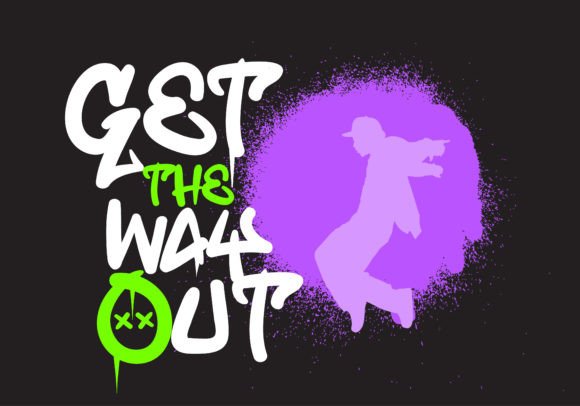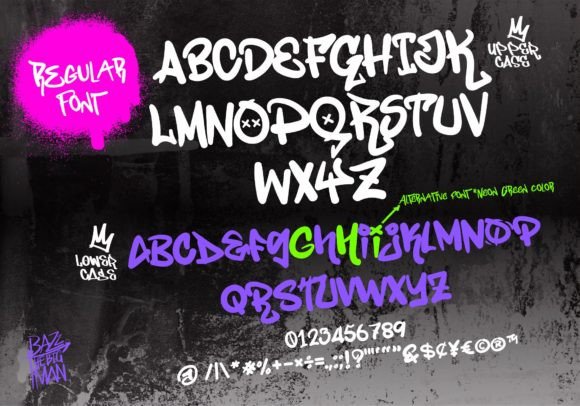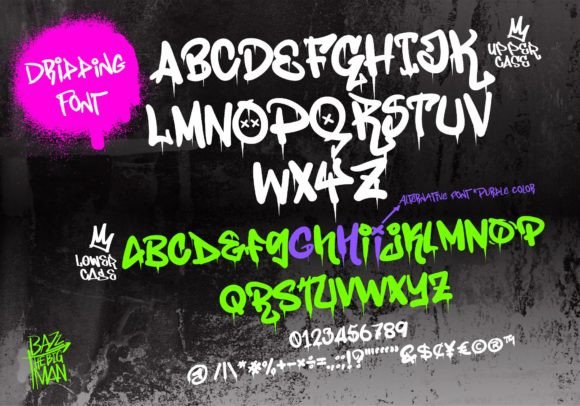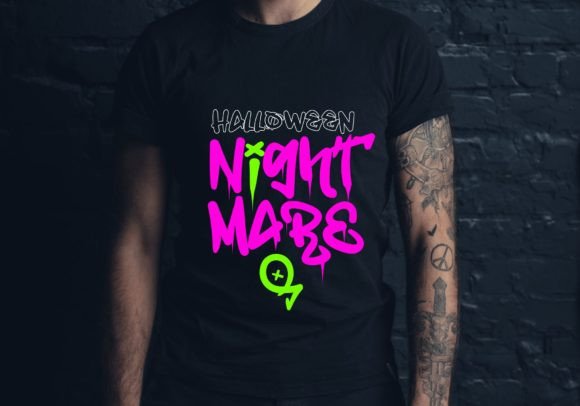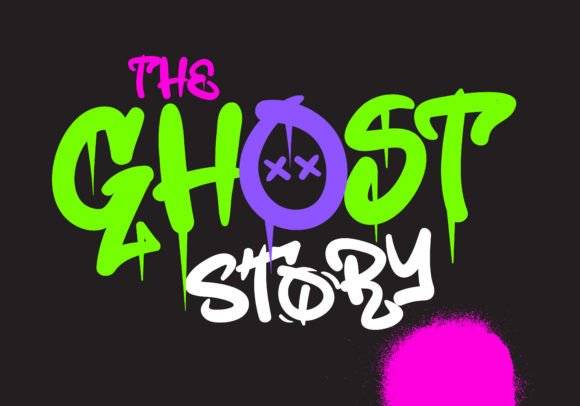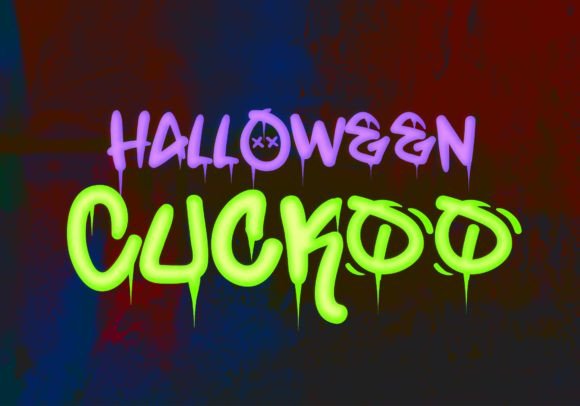
Unleash Your Creativity with Ghoster Font: The Ultimate Graffiti-Styled Display Font
Are you a designer or crafter looking for a font that can add a touch of edginess and street art vibe to your designs? Look no further than Ghoster Font! This awesome graffiti-styled display font is perfect for creating bold and eye-catching designs that will leave a lasting impression. In this article, we’ll dive into the features and benefits of Ghoster Font, and explore how you can use it to take your designs to the next level.
What is Ghoster Font?
Ghoster Font is a unique and stylish display font that is inspired by the urban art scene. Its graffiti-styled letters are bold, colorful, and full of character, making it perfect for designs that require a bit of attitude and swagger. Whether you’re creating a logo, advertisement, or t-shirt design, Ghoster Font is sure to make your work stand out from the crowd.
Key Features of Ghoster Font
- Graffiti-styled letters: Ghoster Font features bold and colorful letters that are inspired by the urban art scene.
- Street art vibe: This font has a distinct street art vibe that is perfect for designs that require a bit of edge and attitude.
- Suitable for various designs: Ghoster Font is versatile and can be used for a wide range of designs, including t-shirts, sportswear, logos, advertisements, clothing, and more.
Benefits of Using Ghoster Font
So, why should you choose Ghoster Font for your designs? Here are just a few benefits of using this awesome graffiti-styled display font:
- Adds a touch of edginess: Ghoster Font adds a touch of edginess and street art vibe to your designs, making them stand out from the crowd.
- Increases visibility: The bold and colorful letters of Ghoster Font make it perfect for designs that require high visibility, such as advertisements and logos.
- Versatile: Ghoster Font can be used for a wide range of designs, making it a great addition to your font library.
- Easy to read: Despite its bold and graffiti-styled letters, Ghoster Font is easy to read, making it perfect for designs that require a clear message.
Design Ideas Using Ghoster Font
Ghoster Font is perfect for a wide range of designs, including:
- T-shirts: Create bold and eye-catching t-shirt designs that will make you stand out from the crowd.
- Logos: Create unique and memorable logos that will help your brand stand out.
- Advertisements: Create bold and attention-grabbing advertisements that will grab the attention of your target audience.
- Sportswear: Create stylish and bold sportswear designs that will make you stand out from the crowd.
- Clothing: Create unique and eye-catching clothing designs that will make you stand out from the crowd.
Ghoster Font is an awesome graffiti-styled display font that is perfect for designers and crafters looking to add a touch of edginess and street art vibe to their designs. With its bold and colorful letters, versatility, and ease of use, Ghoster Font is a great addition to any font library. Whether you’re creating t-shirts, logos, advertisements, or clothing, Ghoster Font is sure to make your designs stand out from the crowd.